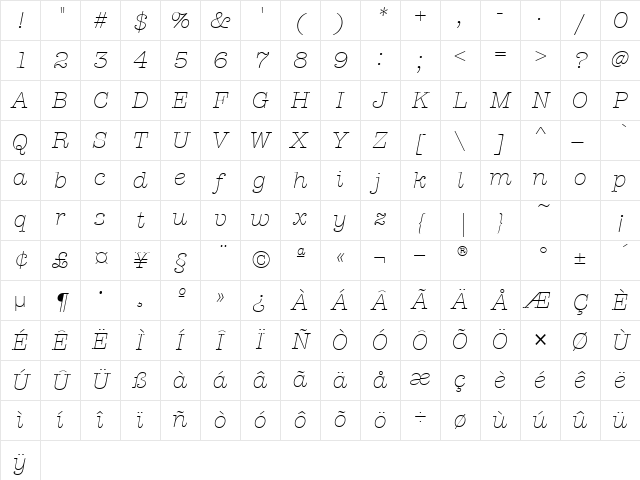
AmTypewriterITCTT LightItalic
Style: LightItalic
Foundry: International Typeface Corporation
Designer: Tony Stan/Joel Kaden
Design Context for AmTypewriterITCTT
AmTypewriterITCTT uses fixed-width spacing throughout, giving it the structured, systematic character associated with coding environments and technical documentation. The slanted form adds forward momentum and visual energy. Its slender proportions lend an understated elegance to any composition.